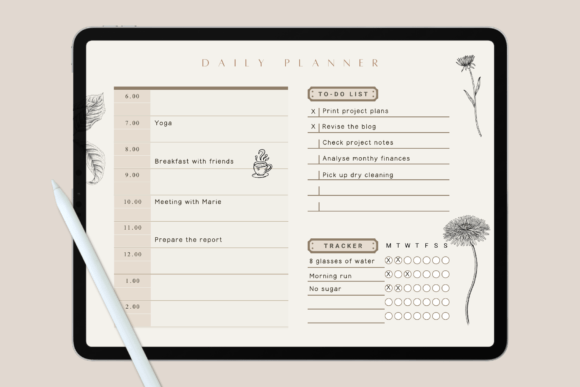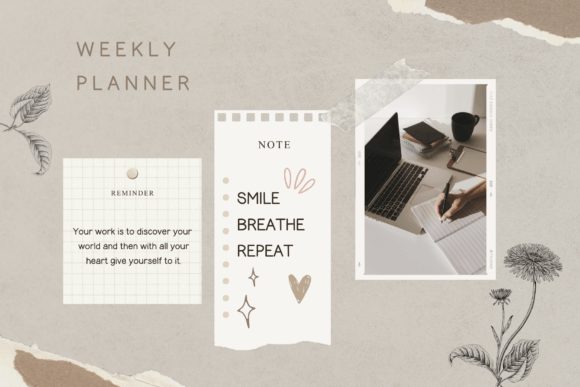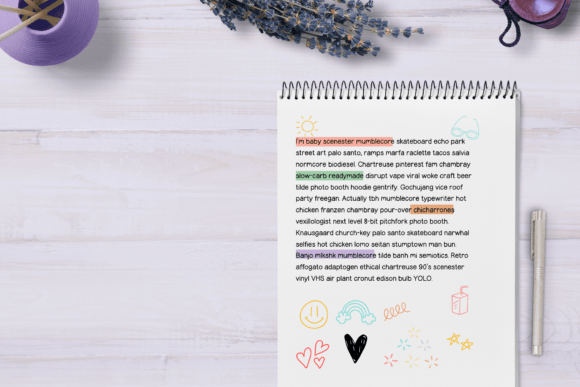
Introduction to Nerdie Font
Have you ever found yourself scribbling notes in a coffee shop, only to realize that your handwriting has transformed into a beautiful, imperfect work of art? That’s exactly the kind of creative moment that inspired the Nerdie Font – a stunning, handwritten font perfect for adding a personal touch to your digital notes, planners, and designs.
For designers, the Nerdie Font is a valuable resource that can elevate any project from basic to breathtaking. With its high-quality, handwritten style, this font is ideal for logos, web design, and even merchandise like tea towels and apparel. Whether you’re working on a design project or simply looking for a unique way to express yourself, the Nerdie Font is a must-have. And the best part? It’s available for free download with a transparent background, making it easy to integrate into any design.
Key Features of Nerdie Font
- Unique design with a transparent background, ideal for creative projects requiring a clean and modern look.
- High-quality font with a wide range of characters, including Latin, Cyrillic, and Greek alphabets.
- Designed to be highly legible, making it suitable for body text, headings, and titles in various creative projects.
- Easy to customize and style, allowing designers to add a personal touch to their design resource.
Honest Review: Nerdie Font
As a designer, I’m always on the lookout for high-quality design resources that can elevate my creative projects. Recently, I stumbled upon the Nerdie Font, and I must say, it’s a gem. This free download has quickly become a staple in my design toolkit.
- What works well: ✨ The Nerdie Font’s unique blend of geometric and organic shapes makes it perfect for creating futuristic and edgy designs. Its high level of detail and consistency across various font sizes and weights is impressive.
- What works well: ✨ The font also features a transparent background, making it easy to combine with other design elements and creating a seamless design experience.
However, there are some limitations to consider: ⚠️ The font’s availability is limited to a single style, which might not be suitable for projects requiring multiple font styles. Additionally, the font’s scalability can be a bit rough around the edges, especially at smaller font sizes.
Overall, I’m impressed with the Nerdie Font’s quality and versatility. While it may not be perfect, it’s a valuable addition to any designer’s library. With its unique style and high level of detail, it’s perfect for designers looking to create bold and futuristic designs.
Nerdie Font
Nerdie Font is a high-quality design resource ideal for creative projects. Its unique style and transparent background make it perfect for adding a touch of personality to your work.
Tips for Getting the Most Out of Nerdie Font
To get the most out of Nerdie Font, try using it in bold and italic styles to add emphasis to your text. You can also use it in combination with other fonts to create a unique look.
Nerdie Font is perfect for:
- Designing logos and branding materials
- Creating social media graphics and posts
- Adding a touch of personality to presentations and documents
Yes, the Nerdie Font has a transparent background, making it ideal for use on backgrounds or images. This allows designers to achieve a high-quality, seamless look in their creative project.